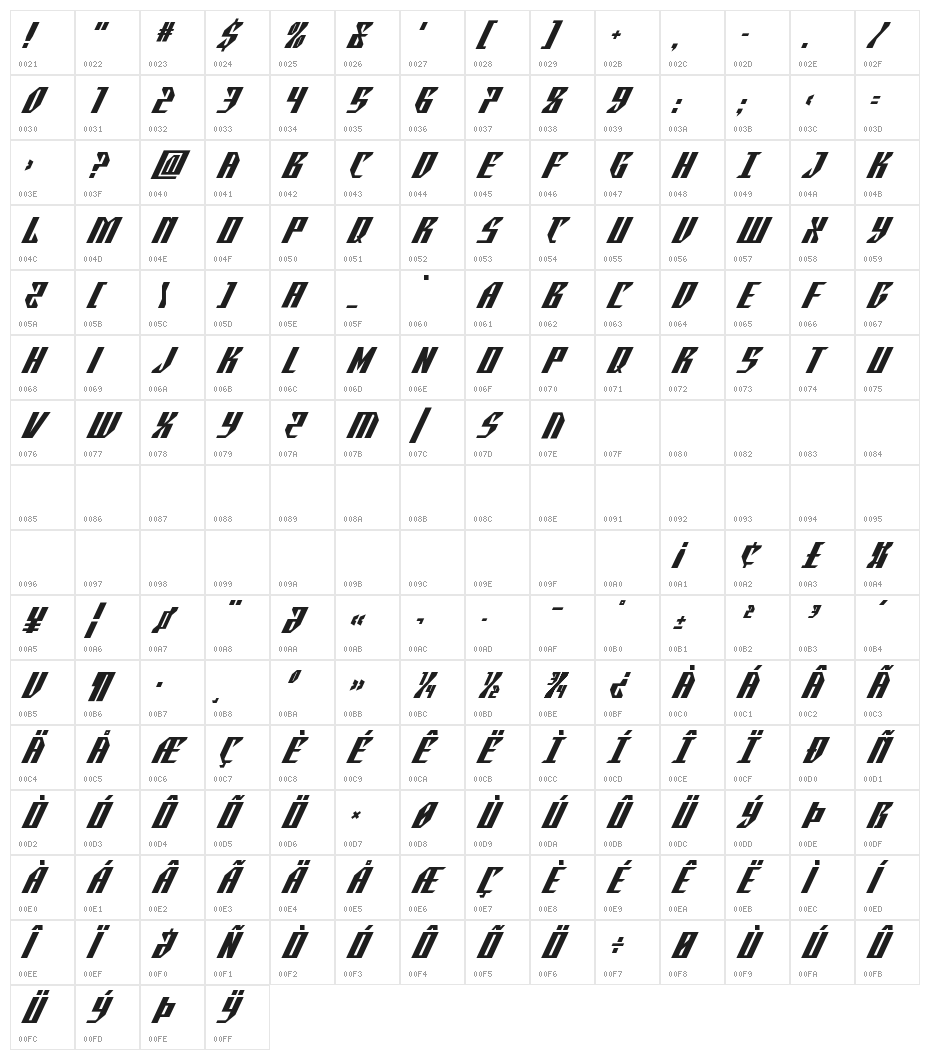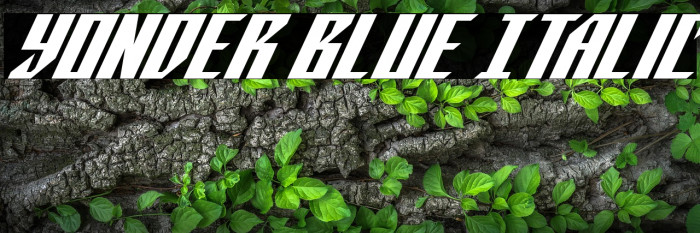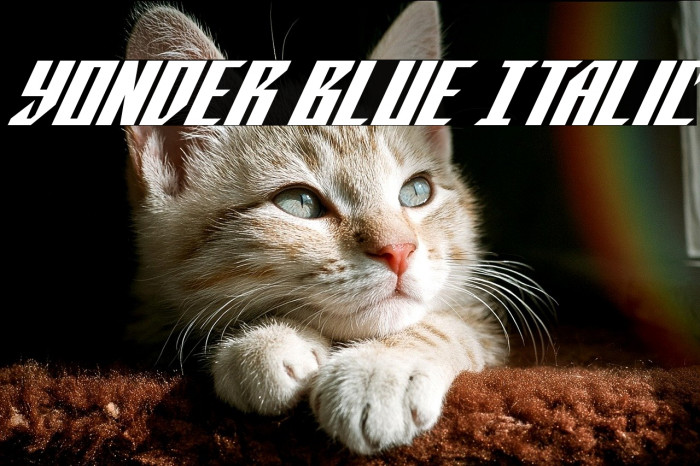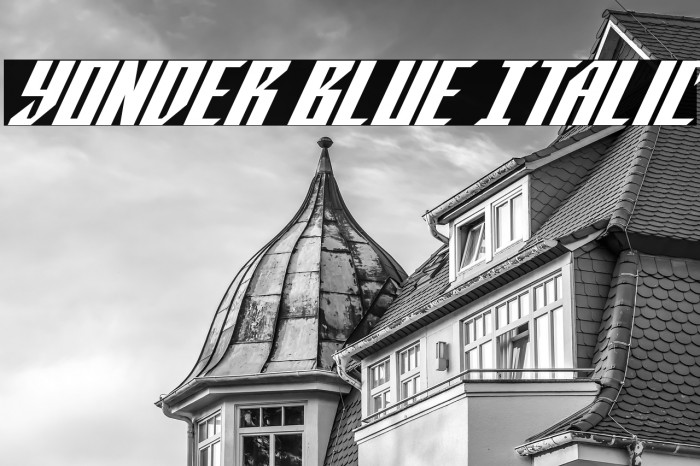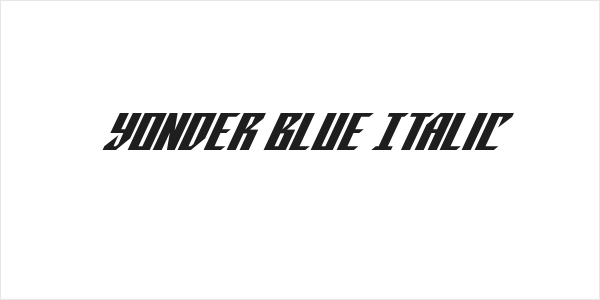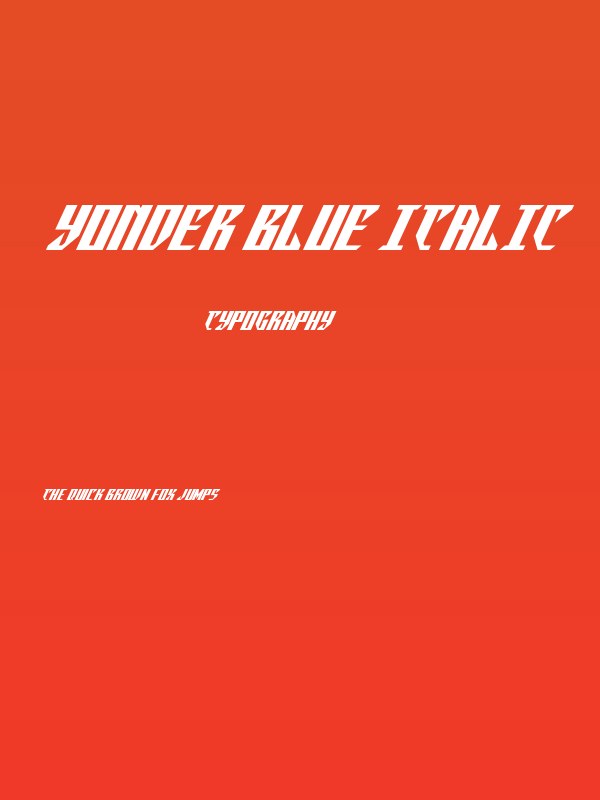
Yonder Blue Italic Font
Yonder Blue Italic Description
This font features a bold and dynamic style with a strong italic slant, giving it a sense of motion and energy. The characters are sharply angled, with a futuristic and edgy appearance. The uppercase and lowercase letters maintain a consistent design, emphasizing sharp edges and diagonal lines. Numbers and special characters are crafted with the same boldness and angularity, ensuring uniformity across all elements. The font's unique style makes it stand out, making it suitable for projects that require a modern and impactful look.
| Proposed Projects | Ideal for sports branding, video game titles, sci-fi movie posters, and dynamic logo designs. |